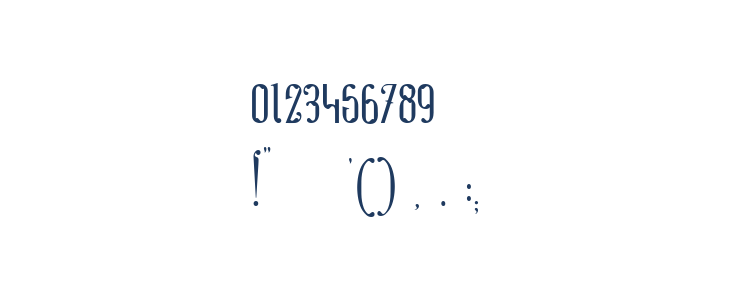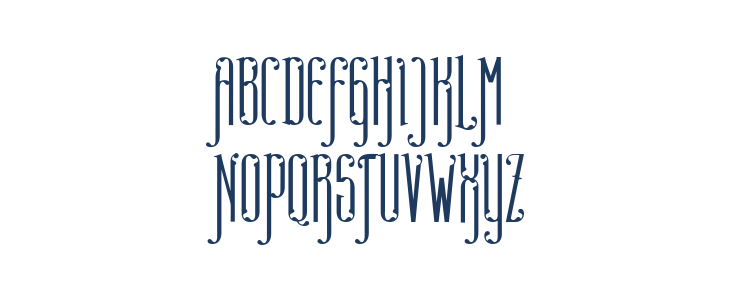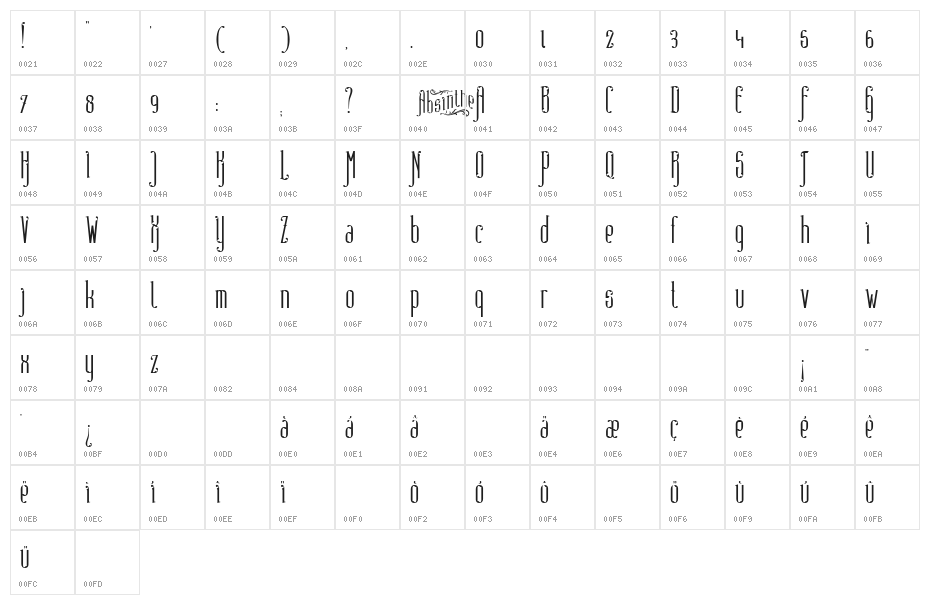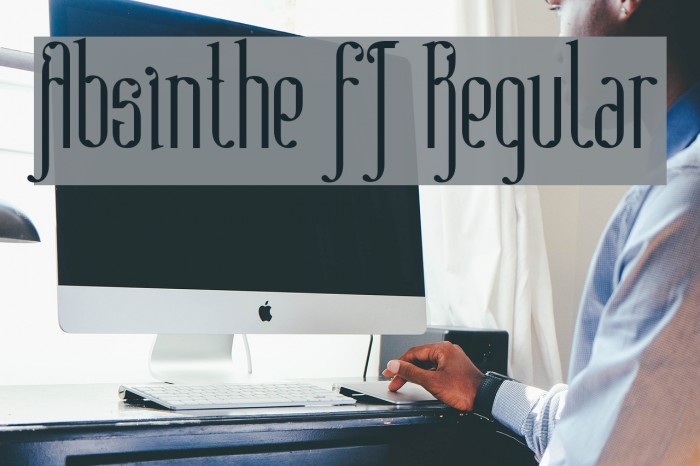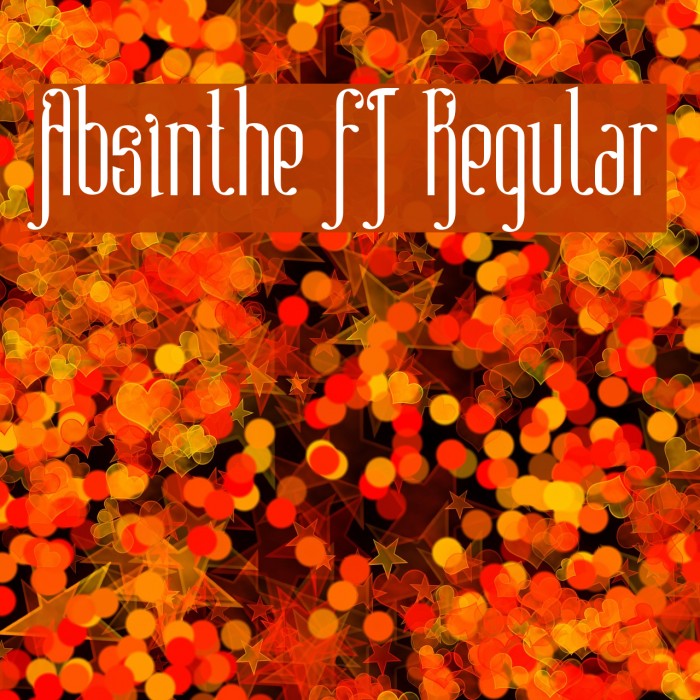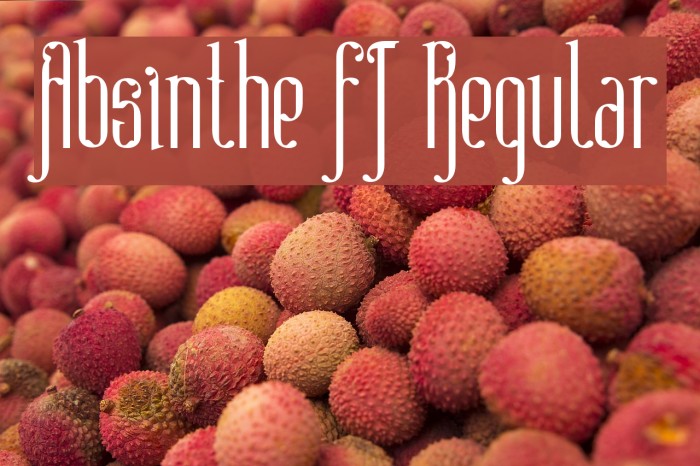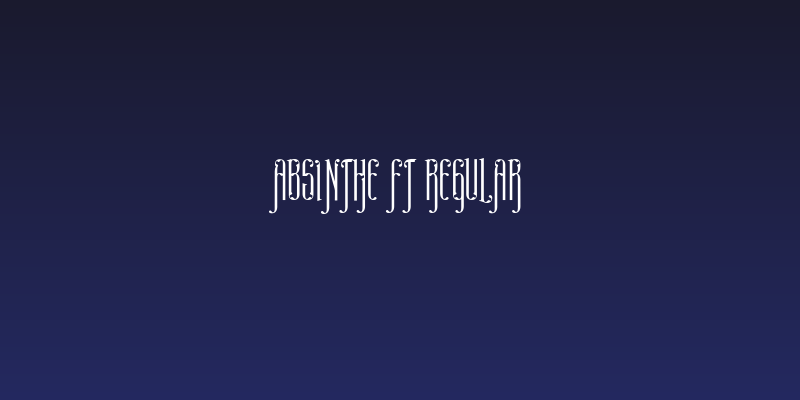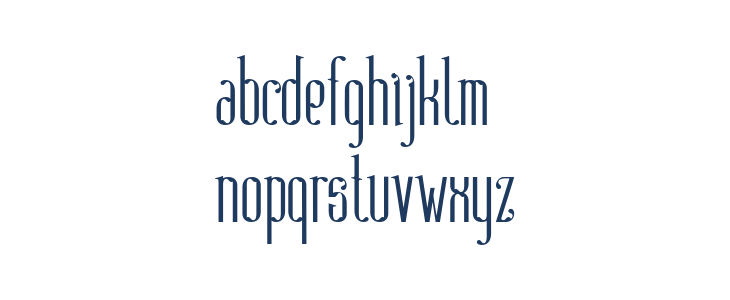
Absinthe FT Regular Font
Absinthe FT Regular Description
This font features a unique and decorative style with elongated and narrow letterforms. The characters have a distinct art nouveau influence, characterized by their elegant curves and intricate details. The uppercase letters are particularly tall and slender, while the lowercase letters maintain a consistent height, adding to the font's cohesive appearance. The numbers and special characters follow the same stylistic cues, ensuring uniformity across all glyphs. This font's design is both eye-catching and sophisticated, making it suitable for creative and artistic projects.
Absinthe is an Art Nouveau inspired typeface.
| Use Case | Headlines, Logos, Artistic projects |
| Proposed Projects | Ideal for posters, invitations, branding, and any project requiring a touch of elegance and creativity. |
Absinthe is an Art Nouveau inspired typeface.